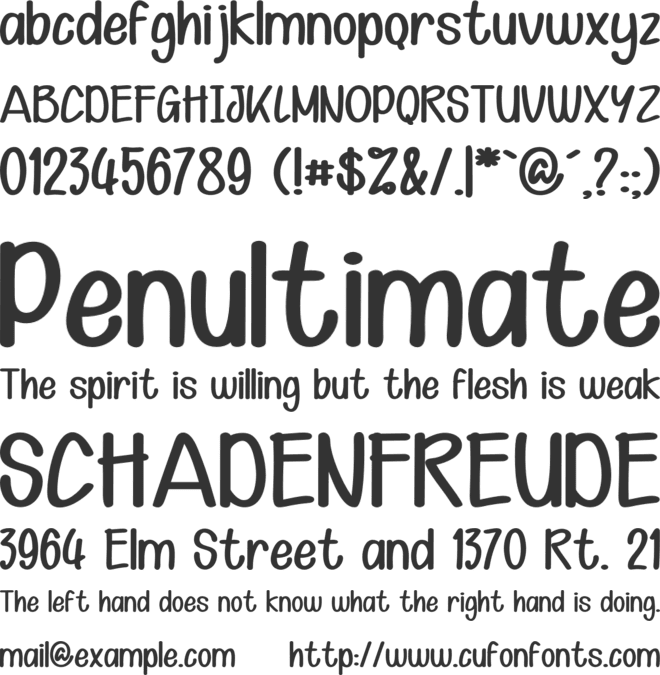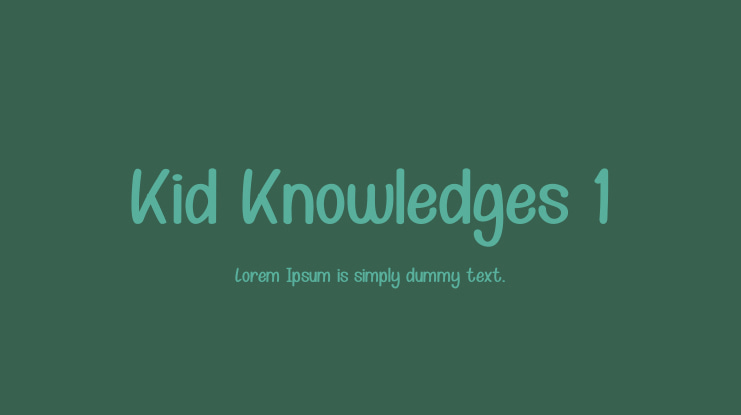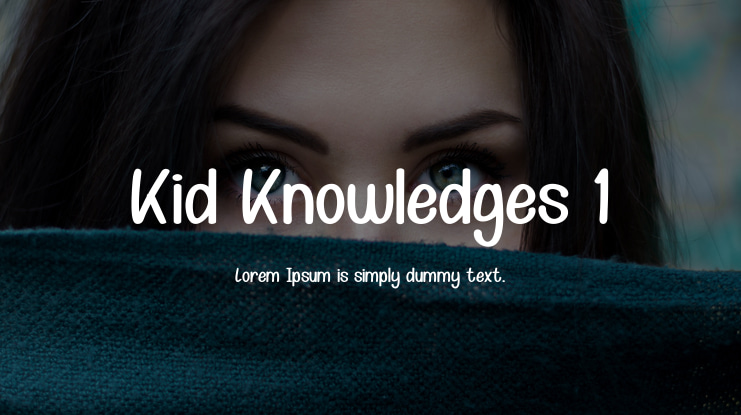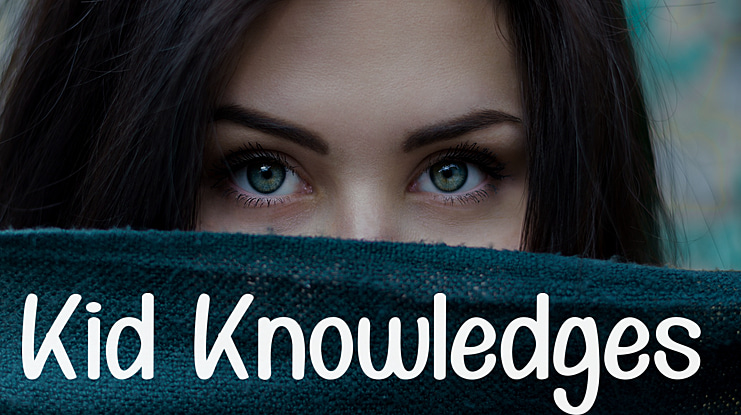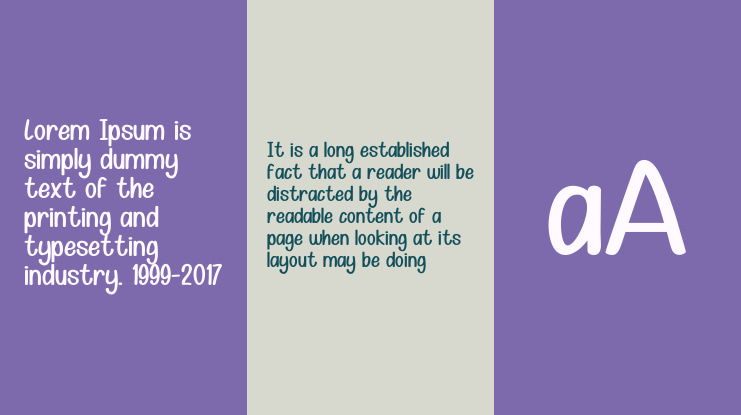
Kid Knowledges 1 Font Family
Kid Knowledge is a striking family. It includes 5 amazing styles which can be combined perfectly, giving you the opportunity to create multiple unique designs in an instant. It was inspired by children’s science projects and will give a playful touch to your designs.This font is for PERSONAL USE ONLY! But any donation are much appreciated.Paypal account for donation: https://paypal.me/38lineartLink to purchase full version and commercial license:https://fontsources.com/product/kid-knowledge/